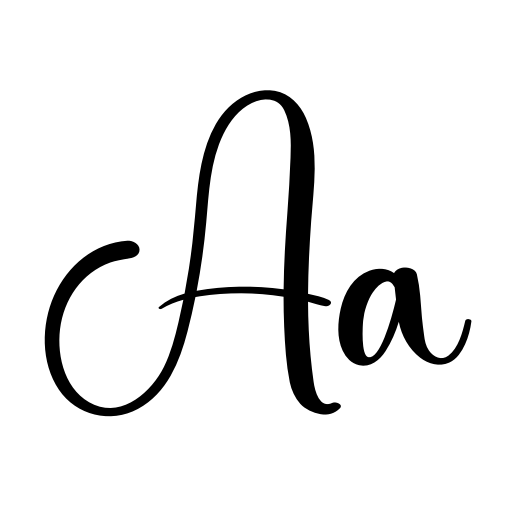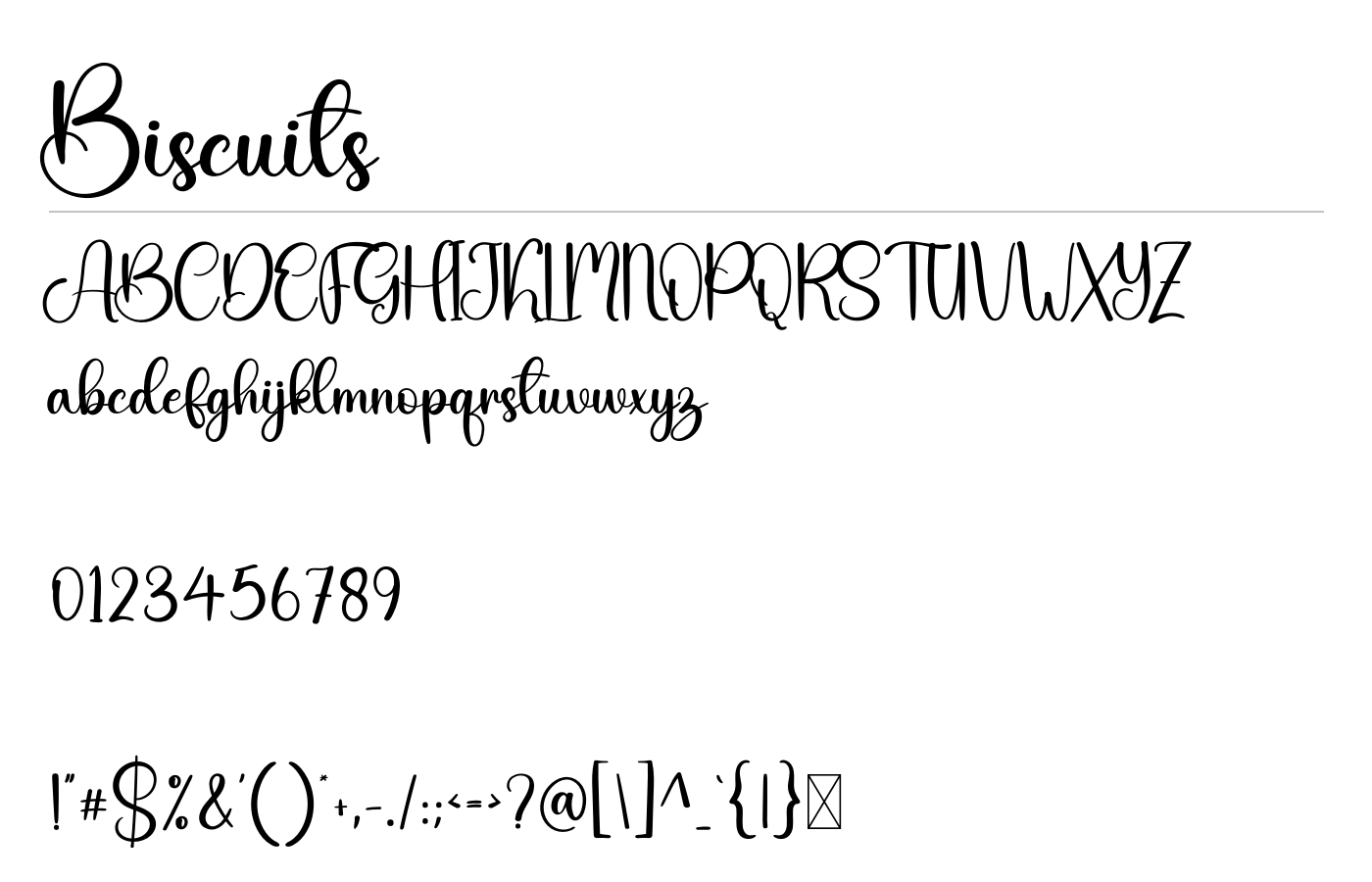
Biscuits is a charming script font featuring elegant, flowing letterforms with a light to regular weight and a slightly condensed width that gives it a delicate, handcrafted feel. Its tall x-height and playful curls create a whimsical, friendly personality, making it ideal for invitations, branding, and packaging that aim to convey warmth and creativity. Perfect for adding a stylish and personal touch, Biscuits works beautifully in headlines and decorative text.
Biscuits Font
About Biscuits Font